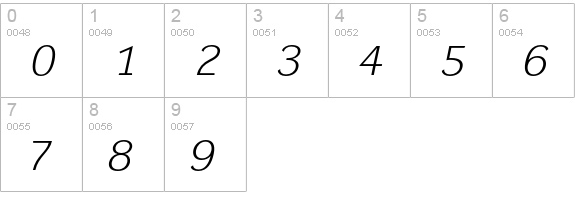
Dynamo Italic L X E is a distinctive, italic variant in the Dynamo typeface family \xE2\x80\x94 well suited to design and typography projects.
Dynamo Italic L X E font offers a sleek and modern look with its elegant and stylish italic design. This font exudes sophistication and professionalism, making it ideal for a wide range of creative projects. The unique curves and lines of Dynamo Italic L X E font add a touch of flair and creativity to any text. Best of all, this font is available for free download at FontsMarket.com. Whether you're working on a logo design, branding materials, or any other project that requires a refined font choice, Dynamo Italic L X E font is sure to elevate your work to the next level. Download this versatile and eye-catching font today and add a touch of elegance to your designs.